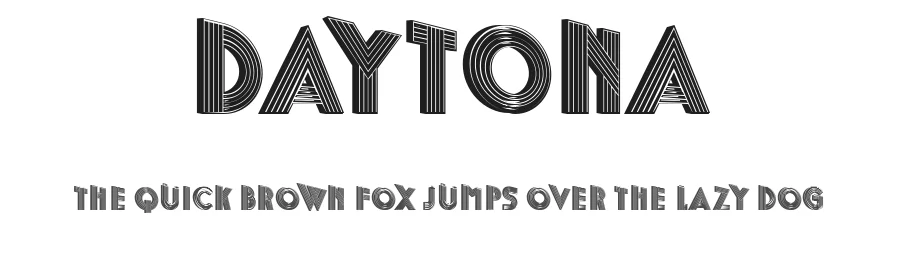
About Petroleum Font
Petroleum is a decorative font designed by Jenna Mahaffy. It includes 128 glyphs, a regular weight, TTF (TrueType) format, and 107 languages. Petroleum is free to download; check the license details on this page before commercial use. Decorative fonts like Petroleum work best for logos, posters, packaging, and standout headlines.
Petroleum Font is a decorative font that shines as a display or heading face. Pair it with a clean sans-serif or serif font for body text β the contrast creates a clear hierarchy while the two styles stay balanced and easy to read.